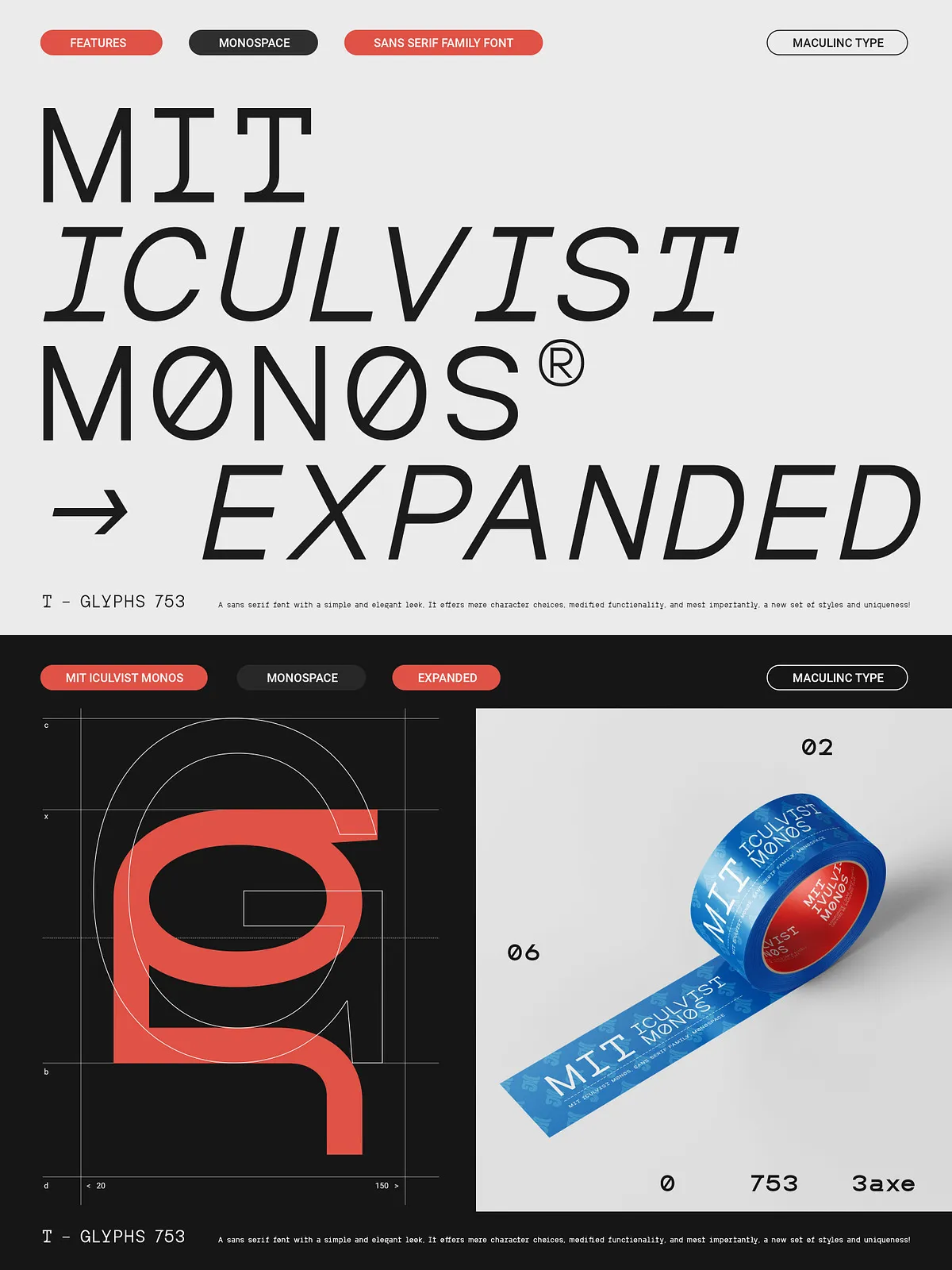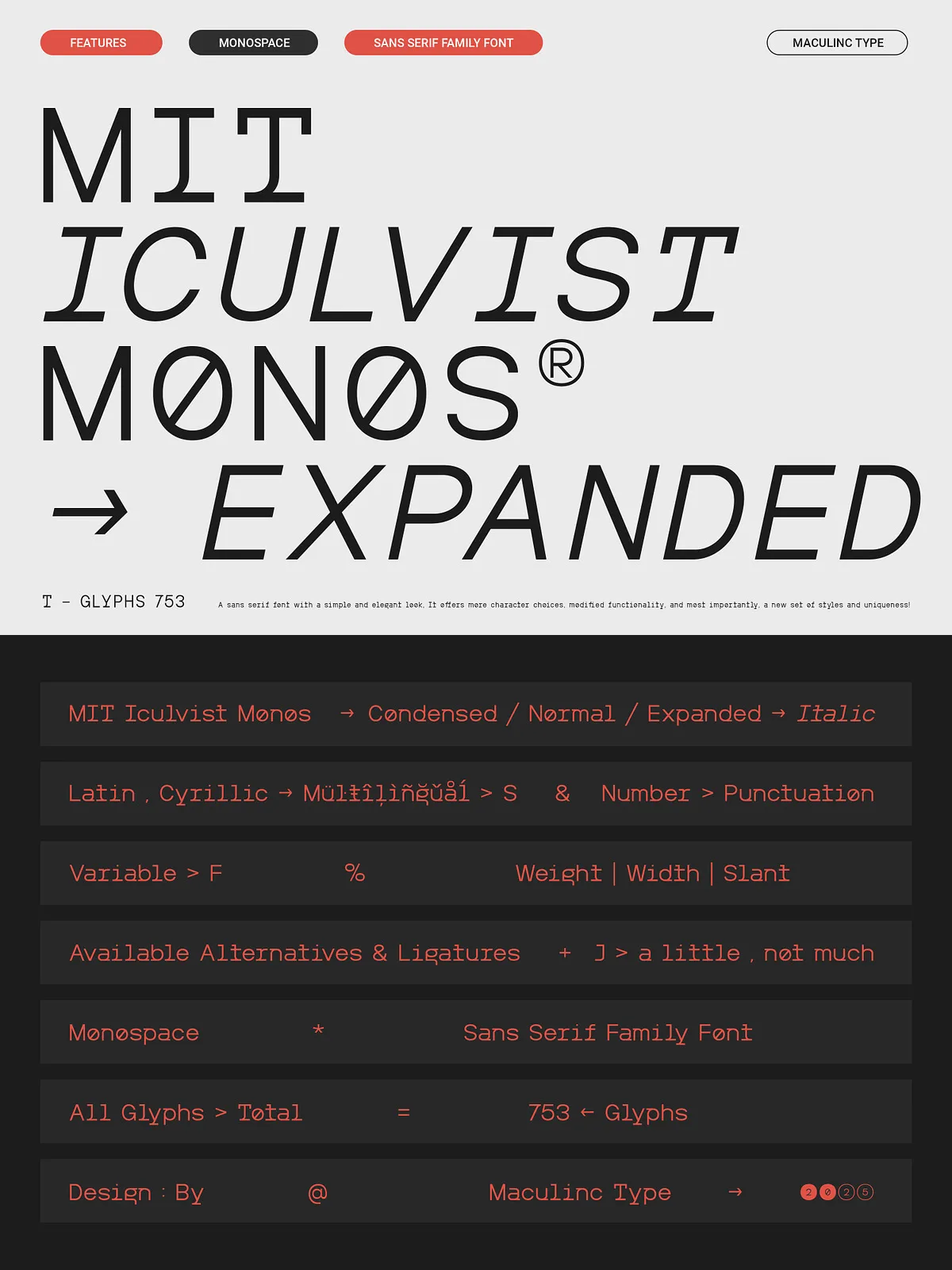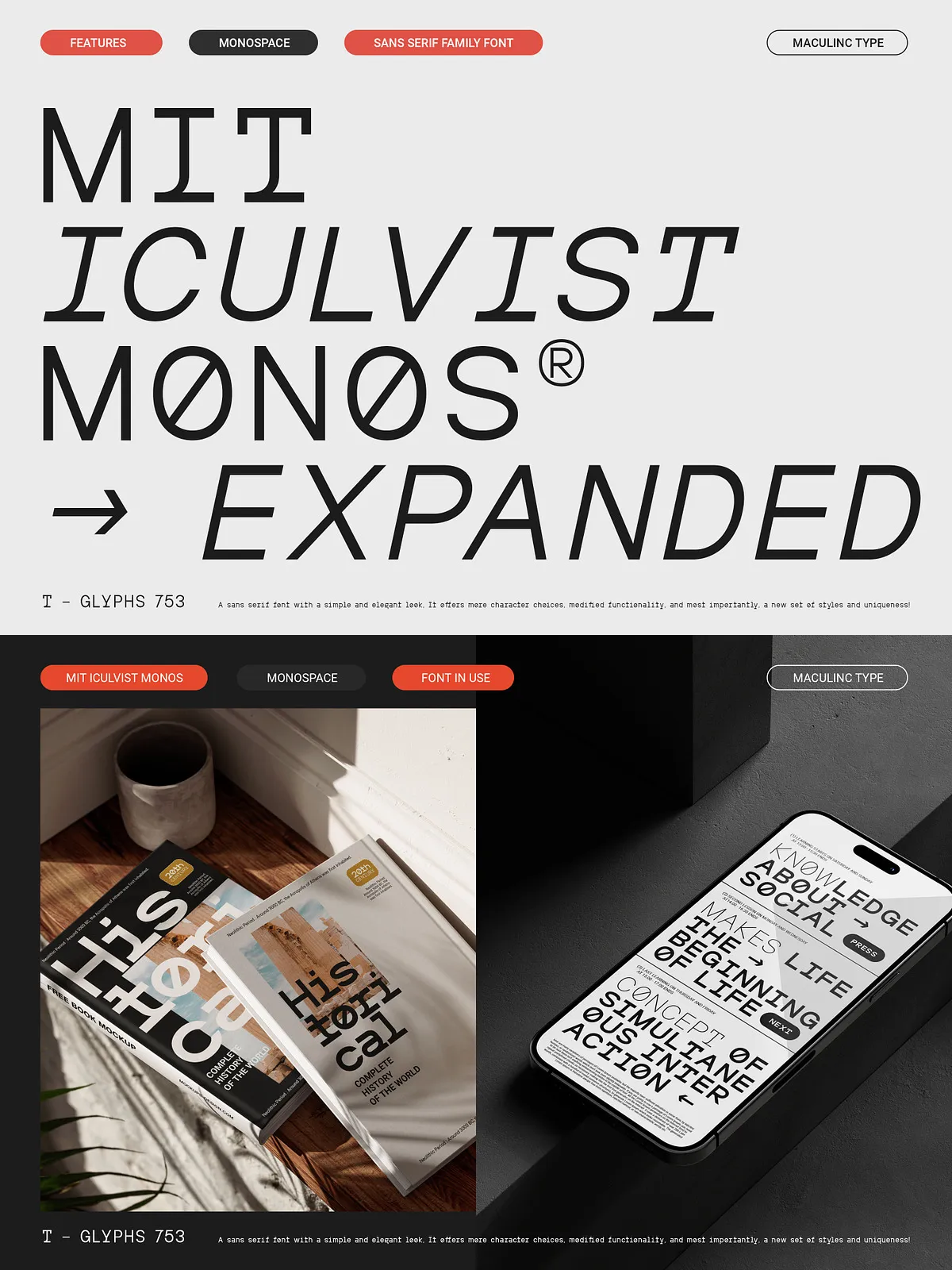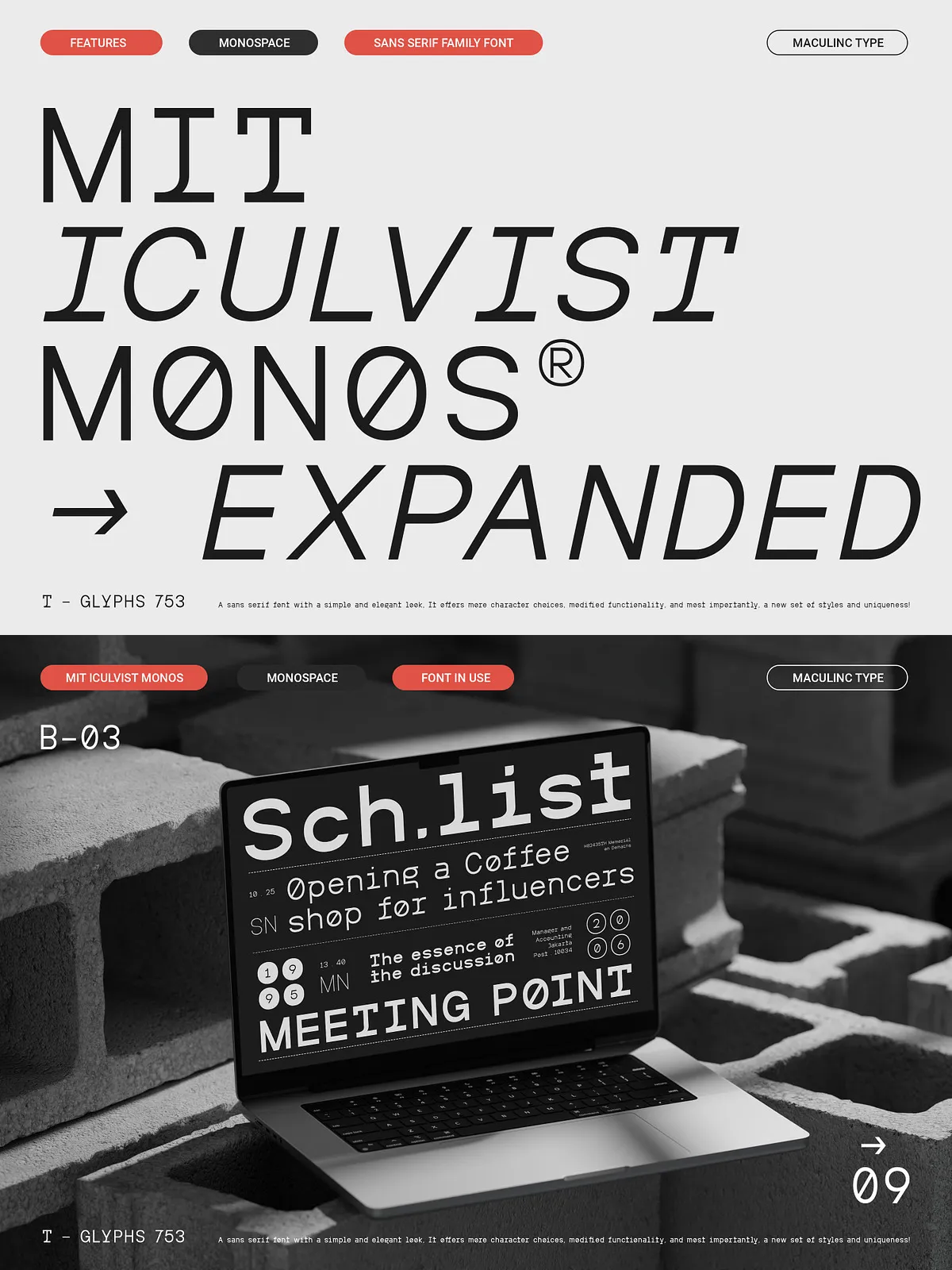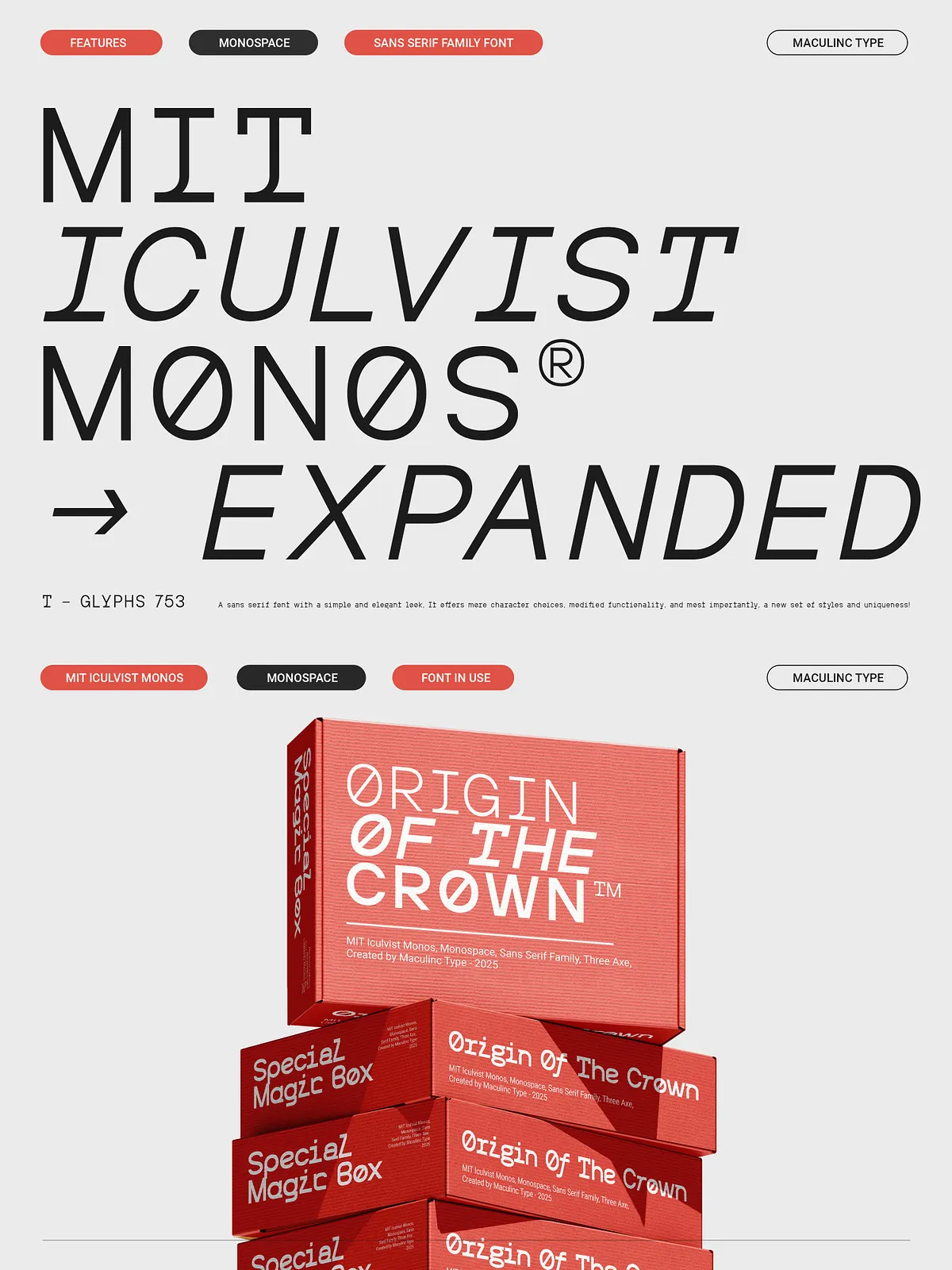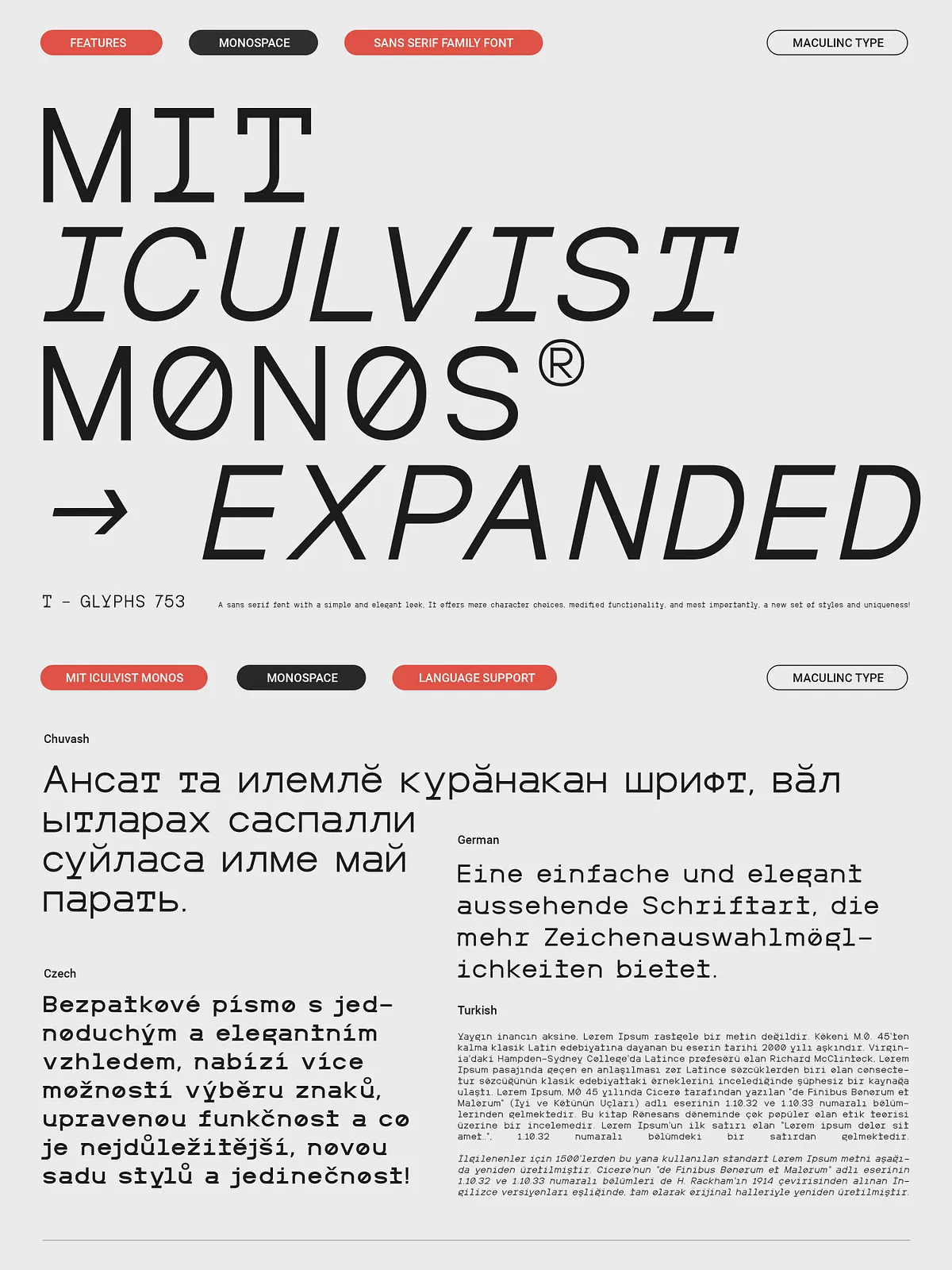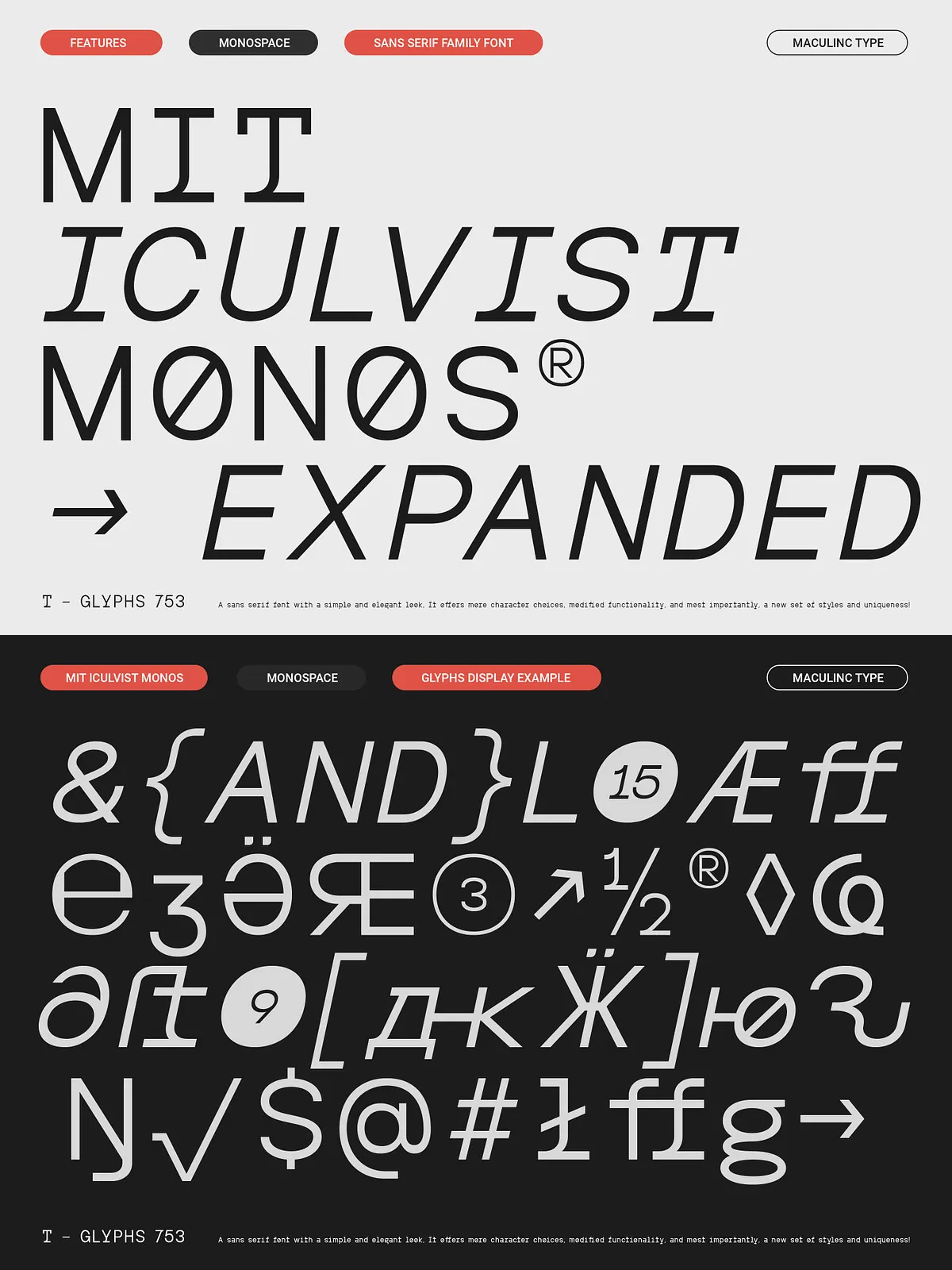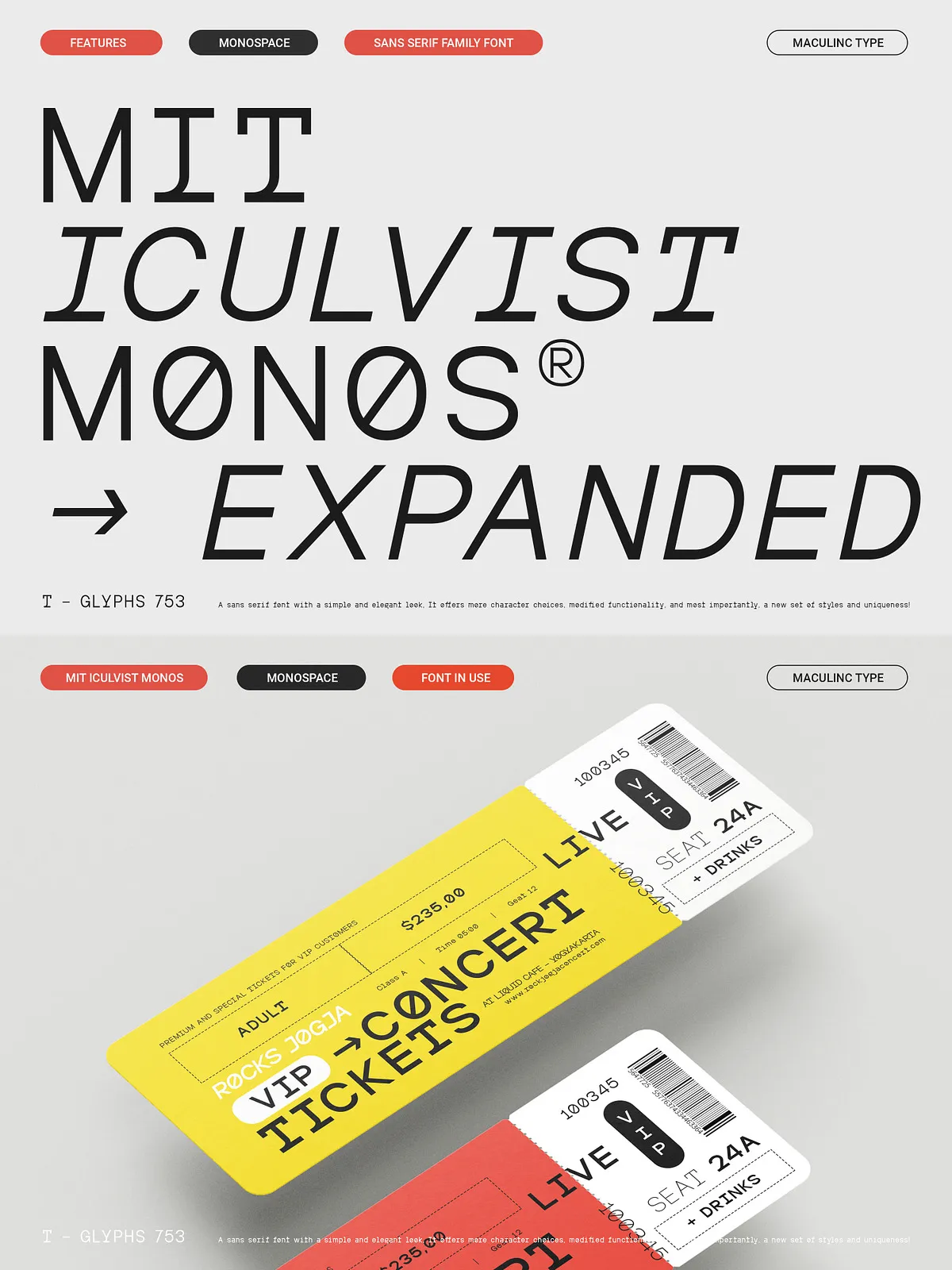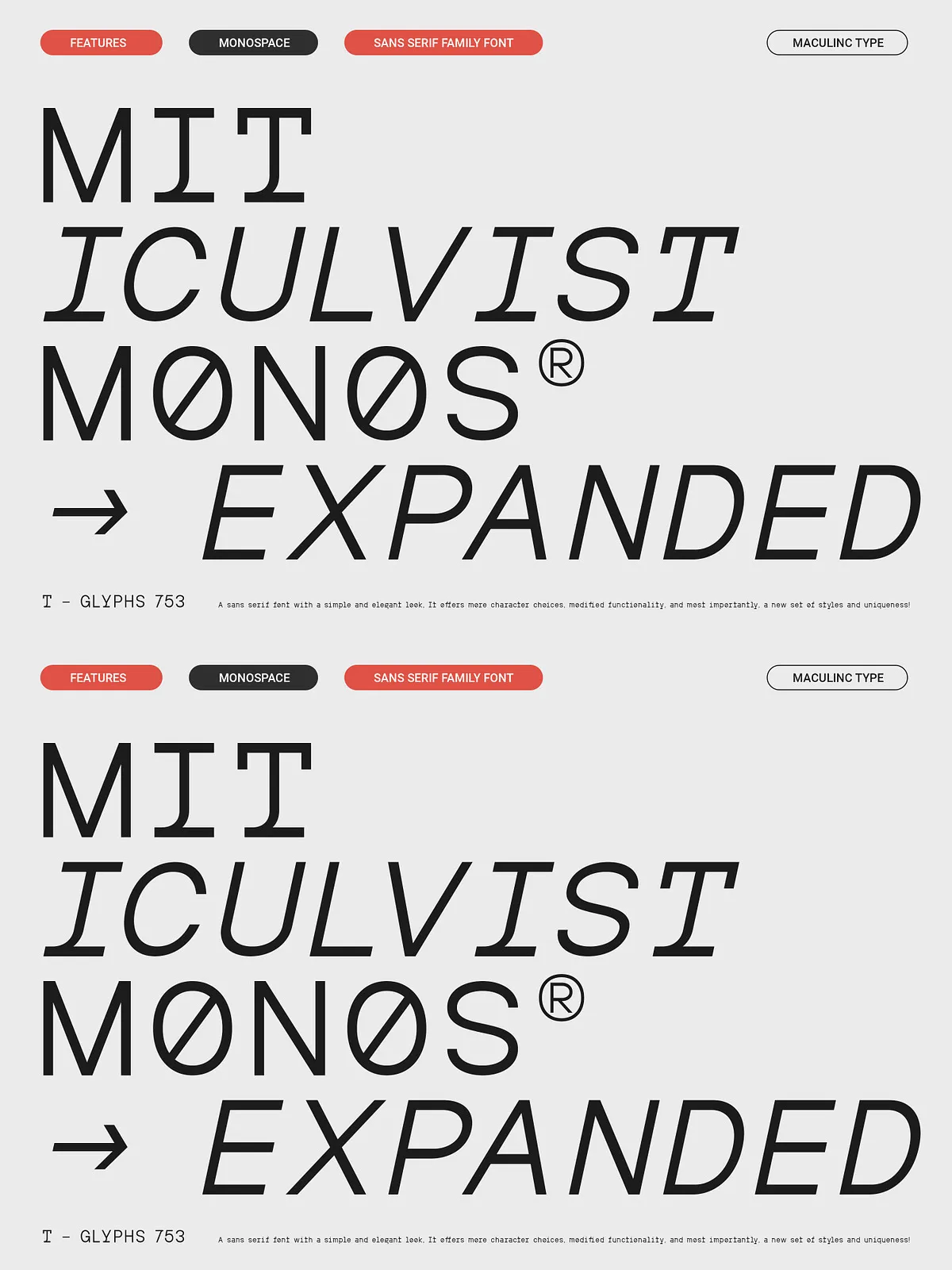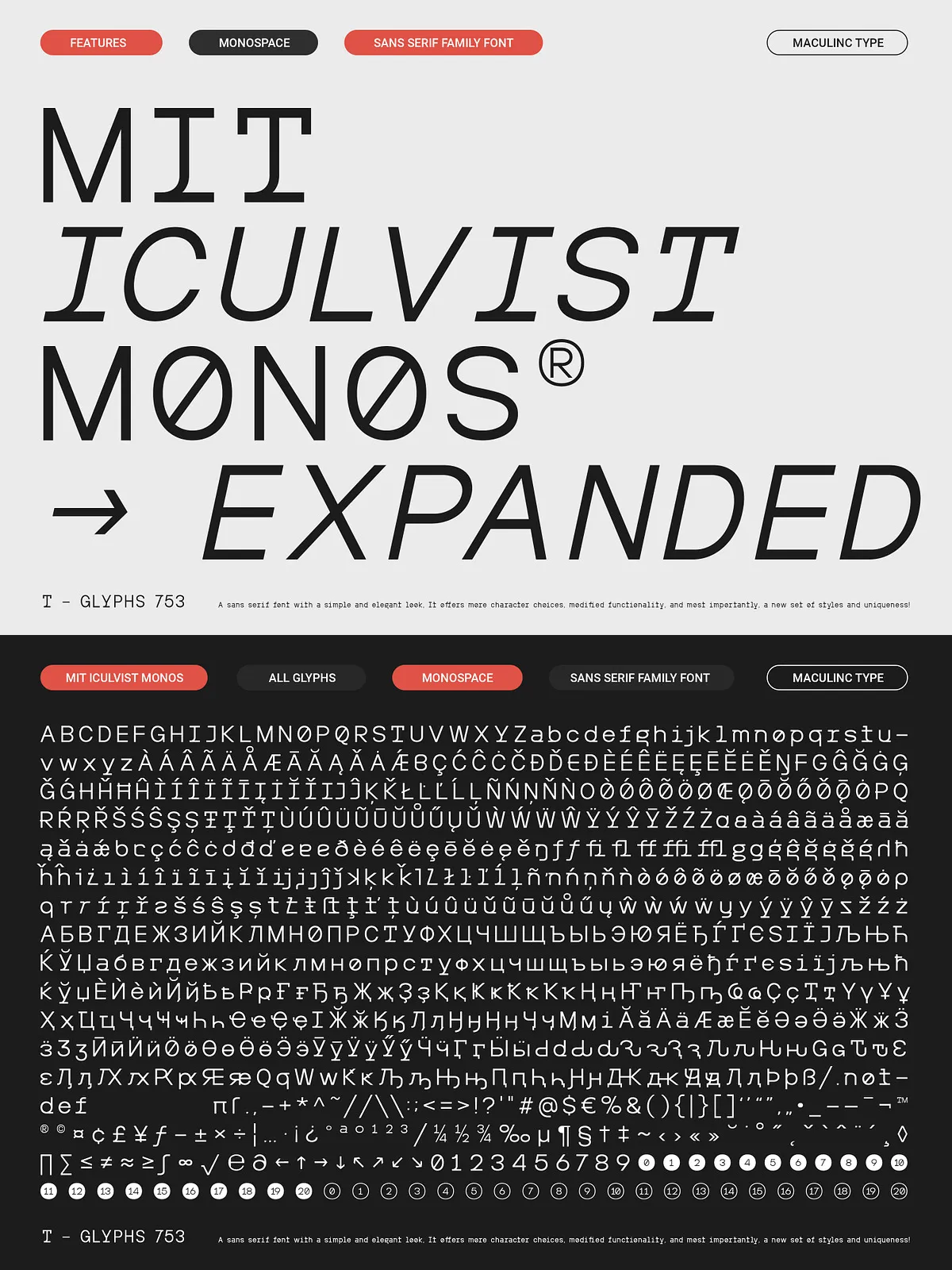
Introducing MIT Iculvist Monos Expanded — the bold, widened evolution of the iconic MIT Iculvist family. Engineered to stand out, this monospaced sans serif font delivers a commanding visual presence while preserving the precise alignment and structural integrity that define monospace design. With its open proportions and wide letterforms, MIT Iculvist Monos Expanded transforms every headline, slogan, and layout into a powerful statement.
Perfect for high-impact visuals, bold typography, and contemporary design systems, this font redefines what a monospace typeface can do. Whether you’re designing eye-catching posters, crafting a dynamic visual identity, or experimenting with avant-garde layouts, MIT Iculvist Monos Expanded brings energy, rhythm, and precision to every character.
Why MIT Iculvist Monos Expanded Is a Design Revolution
More than just a wider version, MIT Iculvist Monos Expanded is a full-featured, professional-grade font family built for real-world creativity and cross-platform performance.
• Designed for Impact, Built for Clarity
- Expanded Proportions — Wider character width increases visual weight and spacing, making text stand out on screens, print, and large-format displays.
- Maintained Monospaced Precision — Every character occupies the same horizontal space, ensuring perfect alignment in coding, tables, and technical layouts.
- Open Letterforms — Generous counters and balanced stroke distribution improve legibility even at smaller sizes in dense compositions.
• Complete Typographic Powerhouse
MIT Iculvist Monos Expanded isn’t limited to a single style. It offers a robust selection of weights and variations to support complex design hierarchies and creative experimentation.
- 14 Distinct Font Styles — Includes Regular, Italic, Bold, Bold Italic, and multiple intermediate weights — ideal for building typographic systems.
- 753 Glyphs per Font — Rich character sets include punctuation, numerals, currency symbols, accented characters, and linguistic variants.
- Advanced OpenType Features — Support for ligatures (e.g., “ff”, “ffi”), stylistic alternates, contextual alternates, and swash options for expressive customization.
- Robust Multilingual Support — Fully compatible with Latin Extended, Cyrillic, Greek, and over 100 languages — essential for global design projects.
Perfect for High-Performance Creative Workflows
MIT Iculvist Monos Expanded is engineered to fit seamlessly into cutting-edge design tools and workflows across platforms.
• Ideal Applications and Use Cases
Use MIT Iculvist Monos Expanded to elevate your projects across diverse domains:
- Headlines & Posters — Maximize impact in editorial design, event promotions, and urban advertising.
- Brand Identity & Logo Systems — Create a bold, tech-forward tone for modern businesses, startups, and creative studios.
- Experimental Typography — Push boundaries in editorial layouts, motion graphics, and digital art installations.
- Technical & Data Visualization — Maintain alignment in code blocks, tables, timelines, and data displays while keeping a premium aesthetic.
- Web & UI Design — Use in navigation menus, call-to-action buttons, and hero sections where boldness and clarity are key.
Claim Your Bold Voice in Modern Design
MIT Iculvist Monos Expanded isn’t just a font — it’s a design philosophy. It’s for creators who refuse to blend in. Who demand structure, strength, and visual authority. It’s for designers who want their typography to speak louder than words.
Choose a font that doesn’t just align characters — it aligns ideas. Choose MIT Iculvist Monos Expanded. Where form meets function, and every letter commands attention.